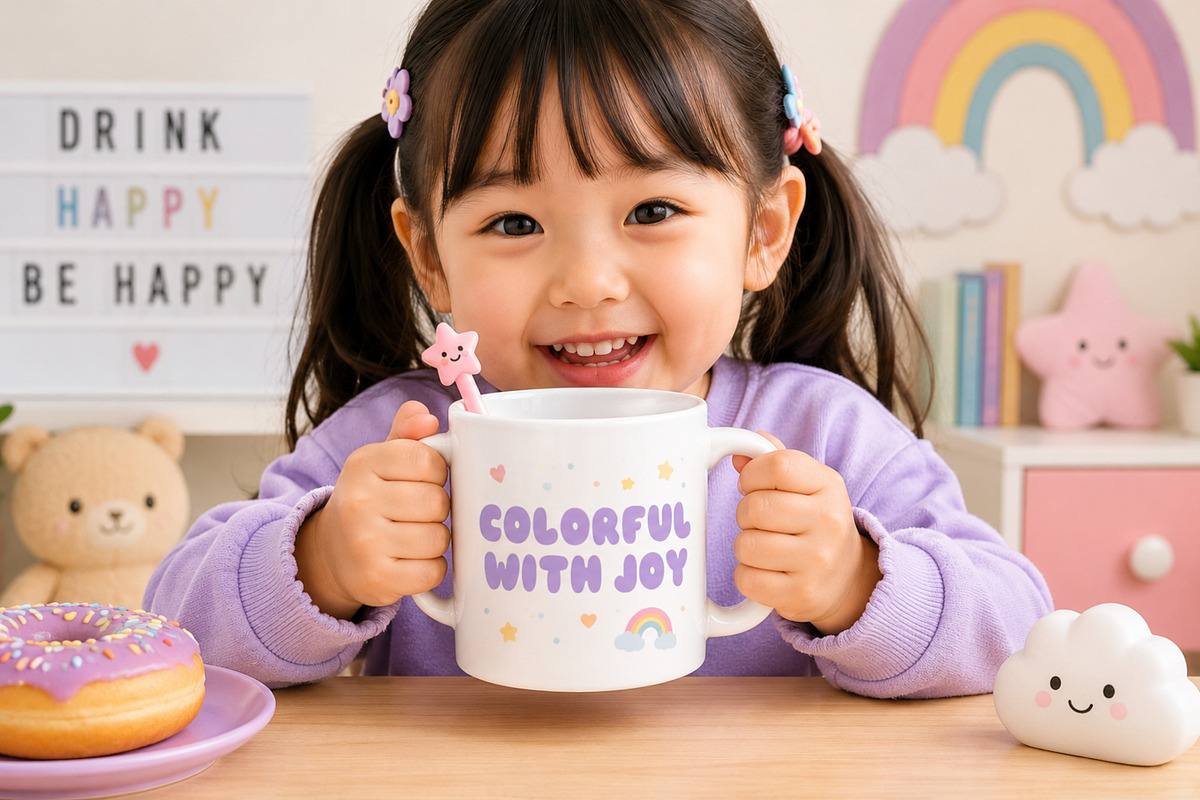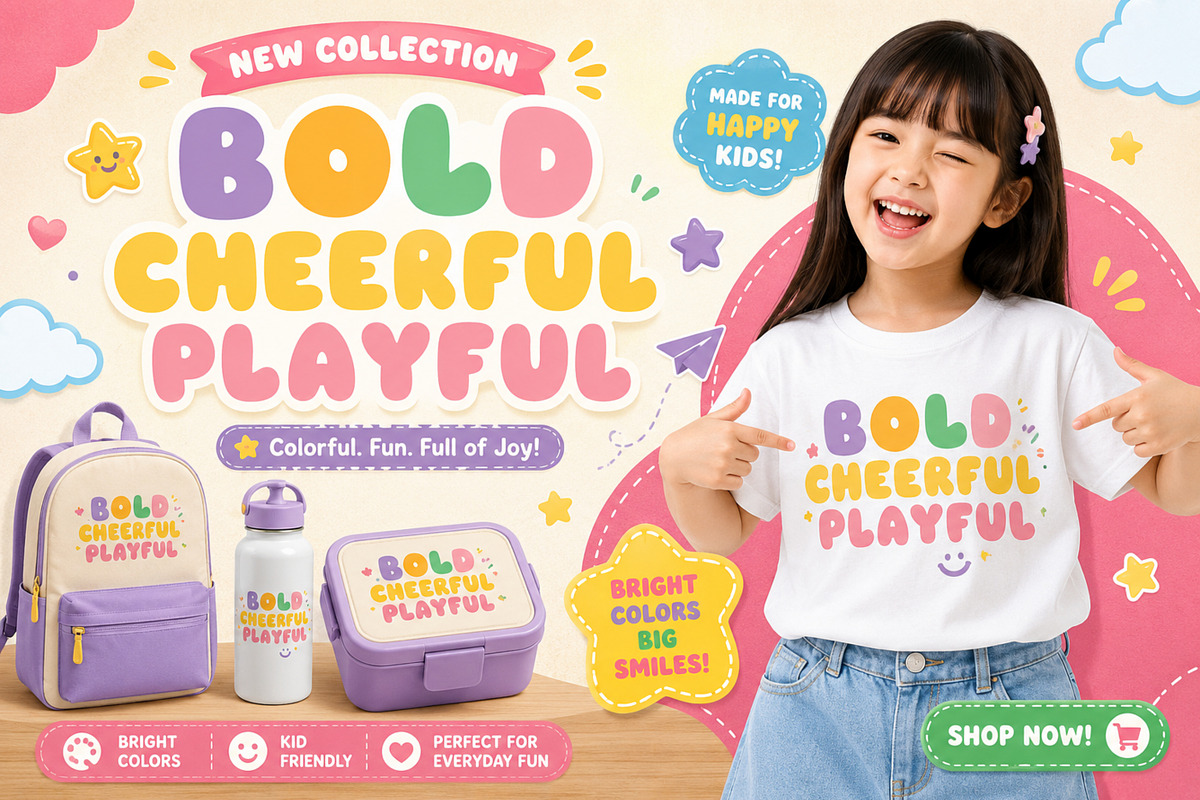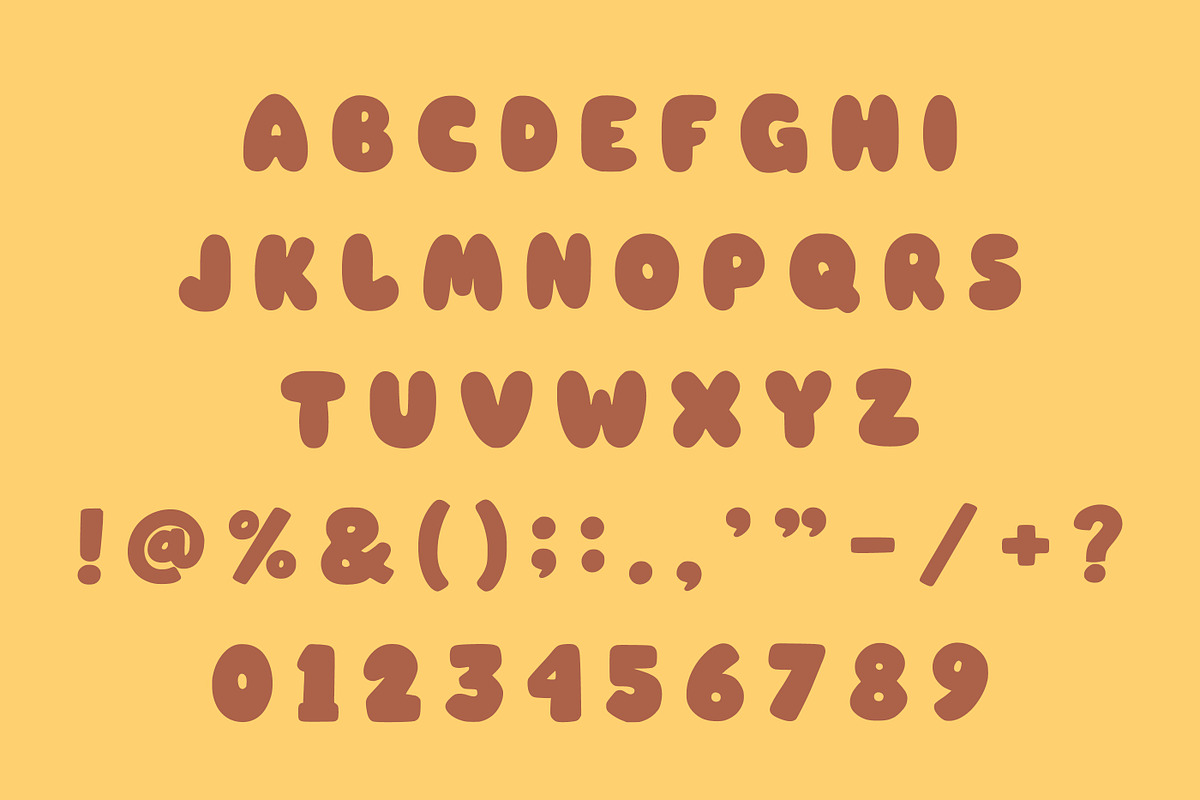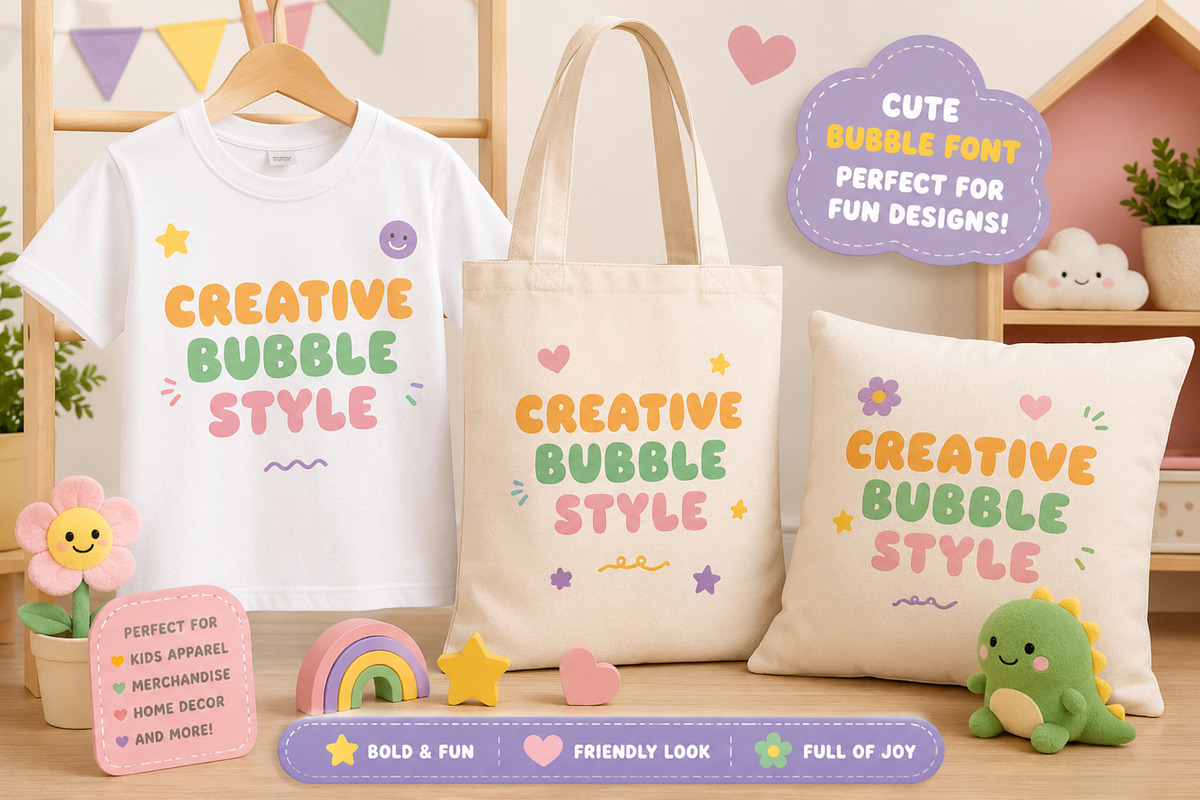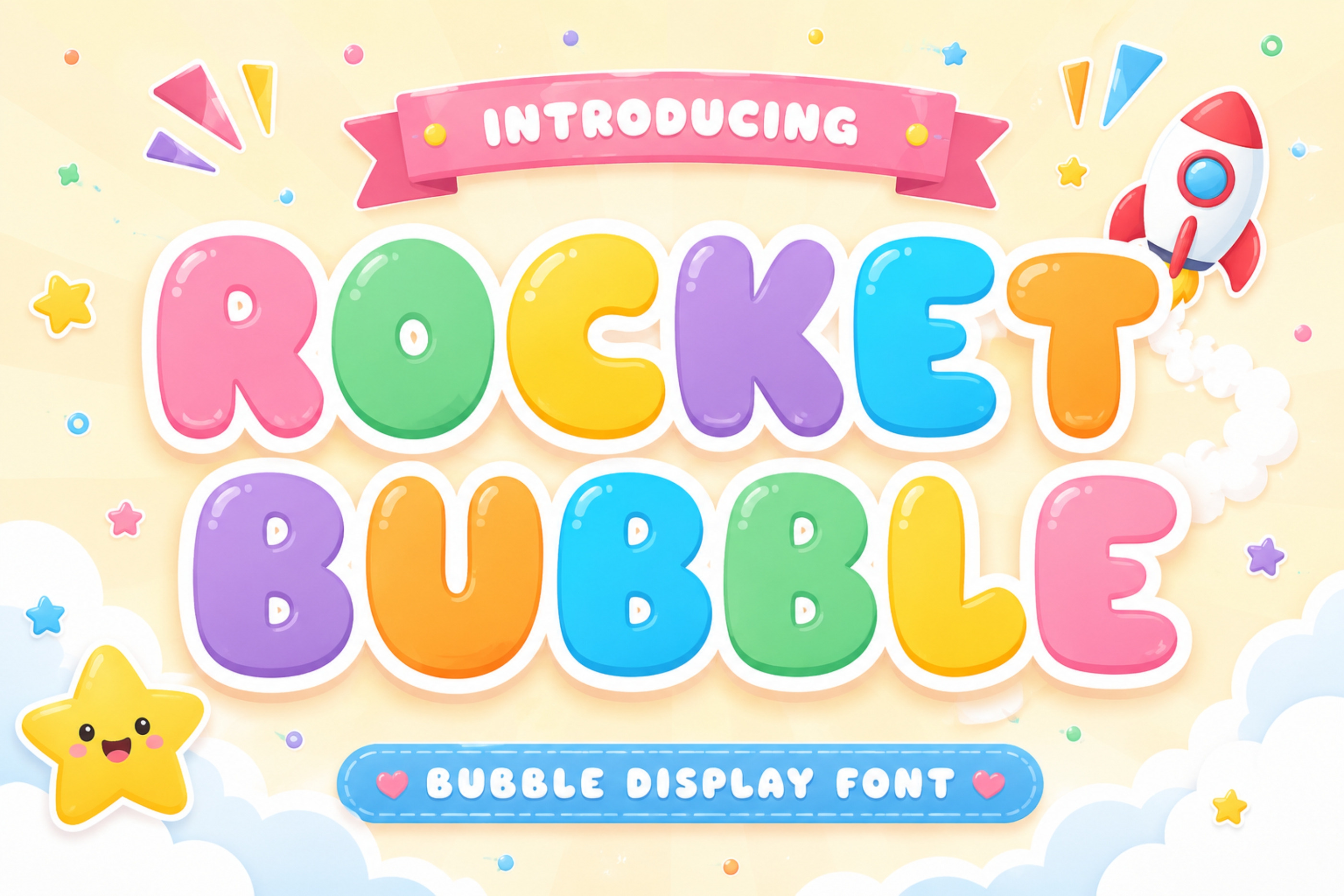
Rocket Bubble - Cute Font
Rocket Bubble Font is a cheerful and playful display typeface featuring soft, rounded bubble letters with a fun cartoon-inspired style. Perfect for children’s designs, classroom projects, birthday invitations, stickers, t-shirts, mugs, tote bags, posters, product packaging, logos, social media graphics, and creative crafts. Its bold and friendly appearance makes every design colorful, joyful, and eye-catching.
Product Highlights: Cute bubble display font Rounded, bold, playful letterforms Perfect for kids-themed projects Great for Cricut & Silhouette crafts Ideal for print and digital designs Easy to read with a fun personality Suitable for branding, packaging, and merchandise Perfect For T-Shirts Mugs Tote Bags Stickers Sublimation Birthday Invitations Baby Shower Designs Kids Apparel Classroom Decorations Book Covers Posters Logos Packaging Social Media DIY Crafts Scrapbooking Greeting Cards Nursery Decor Labels Printable Projects